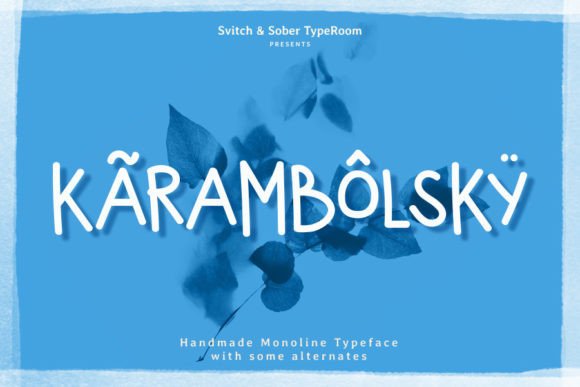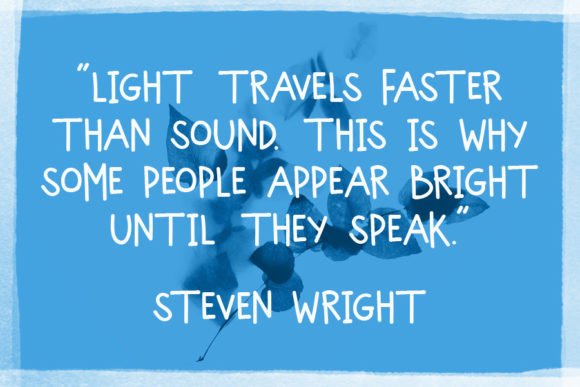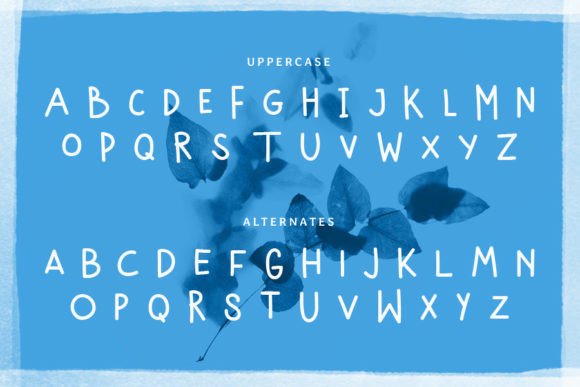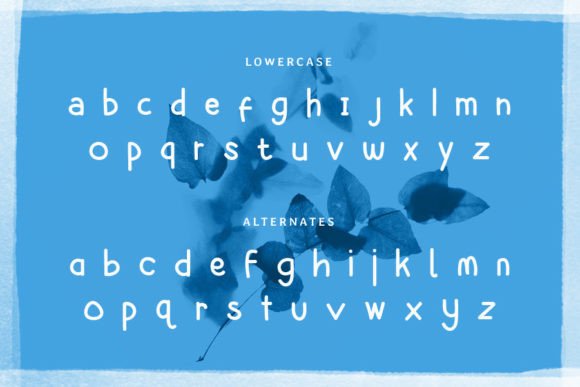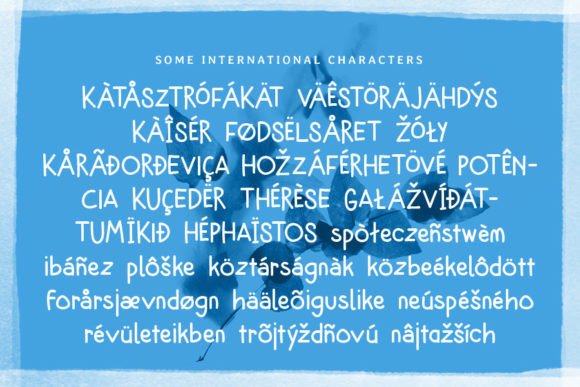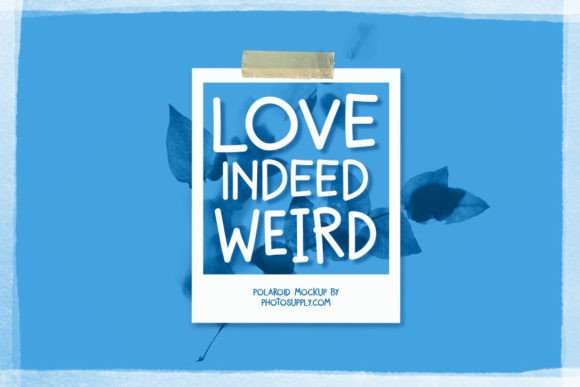
Karambolsky Font
About Karambolsky Font
**Karambolsky: A Playful Twist on Typography**
Introducing Karambolsky, the font that adds a splash of fun and whimsy to your design projects. With its slightly messy yet utterly charming handwritten style, Karambolsky is the perfect choice to infuse joy into your creations.
Karambolsky is all about embracing imperfection and celebrating the beauty of a carefree, hand-drawn aesthetic. Its characters have a lively, free-spirited quality that brings a unique and vibrant energy to any project they grace. Whether you’re working on birthday cards, thank-you notes, movie titles, or any other creative endeavor, Karambolsky promises to be a delightful addition.
One of Karambolsky’s standout features is its ability to brighten up designs effortlessly. Its playful demeanor adds a touch of whimsy to your text, making it ideal for projects where a dash of personality is needed. The font is like a friend who knows how to make everyone smile with its charming quirks.
Birthday cards come to life with Karambolsky, where each letter dances with excitement. Thank-you cards become warm and heartfelt, resonating with genuine appreciation. Movie titles gain an element of playfulness that draws audiences in, setting the mood for cinematic adventures.
Karambolsky is your trusty companion for all things creative and cheerful. It’s the font that turns ordinary projects into extraordinary experiences. Its laid-back style makes it easy to incorporate into various design contexts, making it versatile and adaptable.
So, if you’re looking to infuse some fun and a touch of messiness into your designs, look no further than Karambolsky. Embrace the art of imperfection and let this font be your creative muse. With Karambolsky, you’ll discover the joy of playful typography that adds life and character to your projects.